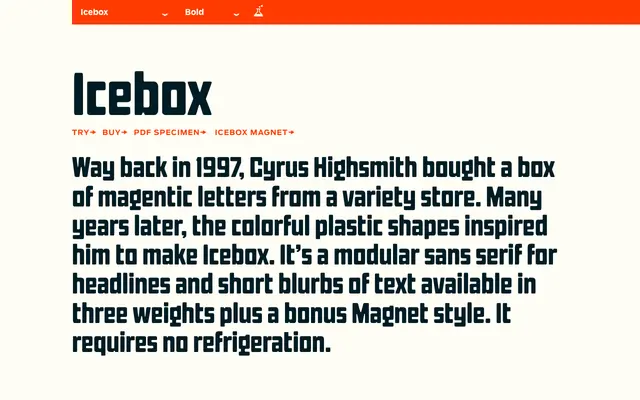
Icebox
Occupant Fonts · Cyrus Highsmith · 2012
A modular display sans by Cyrus Highsmith, drawn from the shapes of plastic magnetic refrigerator letters and available in three weights plus a Magnet variant.
Designed by Cyrus Highsmith and released in 2012, Icebox traces its origins to a box of magnetic letters bought in 1997, whose colourful plastic forms eventually fed into a modular letterform system. Three weights — Light, Regular and Bold — suit headlines and short blurbs, while the bonus Magnet style adds a companion option. Latin Extended character coverage makes it usable across a broad range of European languages.
Icebox is a modular sans serif derived from the geometric logic of plastic magnetic letters, intended for headlines and short text rather than running copy, placing it firmly in the display category.